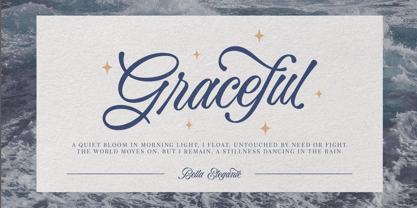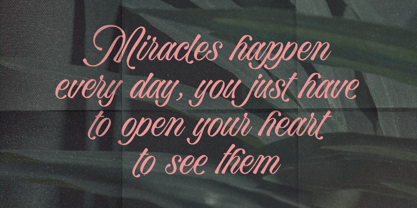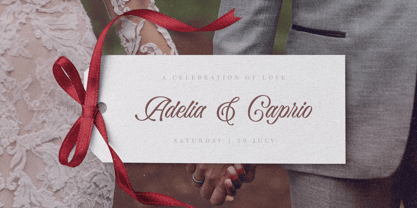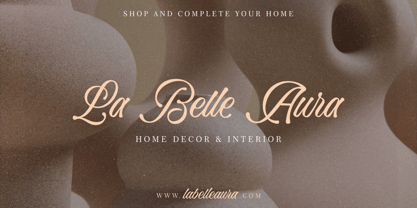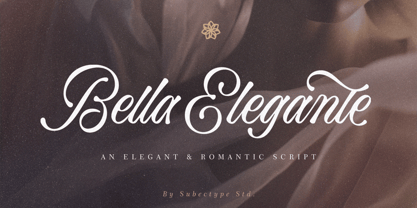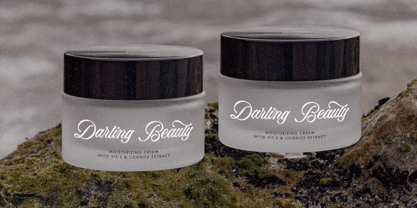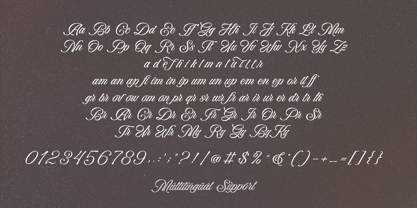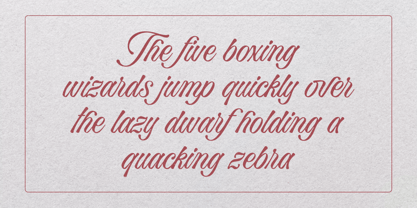
Bella Elegante
by Subectype
The Bella Elegante Font Family was designed by Rangga Subekti and published by Subectype. Bella Elegante contains 1 styles. More about this family
Bella Elegante is a Chic calligraphy font, described by an Love touch, perfect for Wedding party, invitation, Signature brand, and all of project with beautiful calligraphy font.
Fall in love with its incredibly distinct and timeless style and use it to create spectacular designs!
Designers: Rangga Subekti
Foundry: Subectype